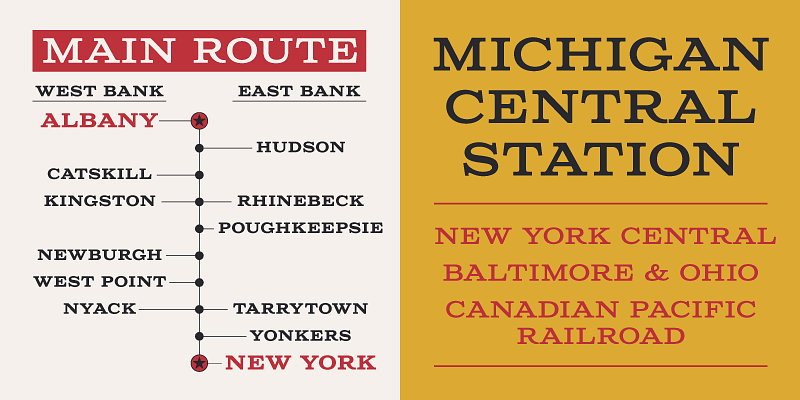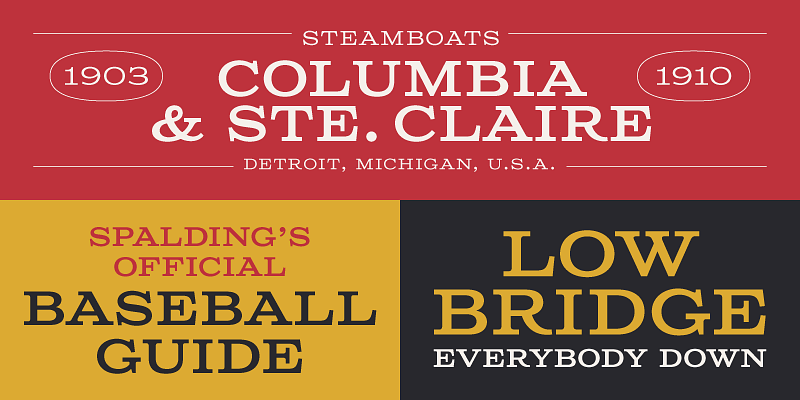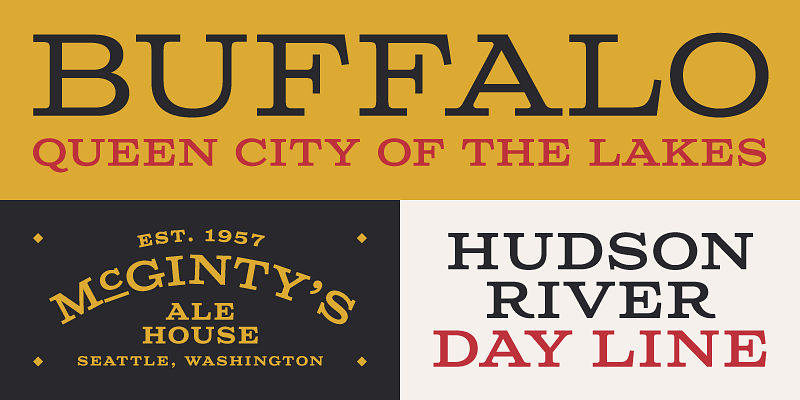
Columbia Titling is based on wide slab-serif wood type and industrial signage from the turn of the 20th century. Depending on its use it can easily play either old-fashioned or fresh and contemporary.